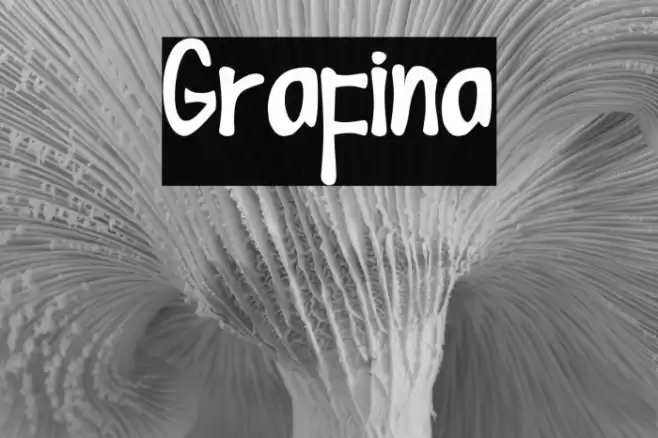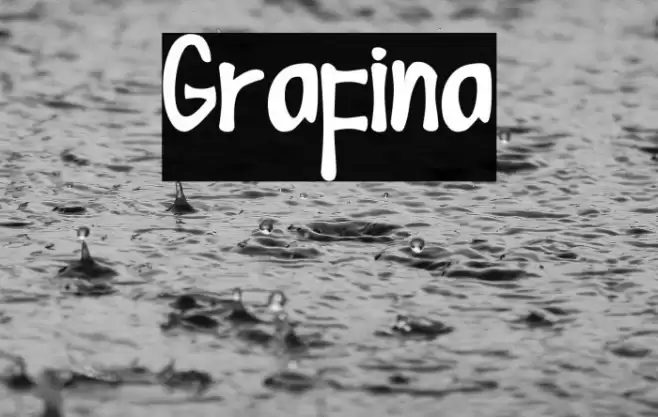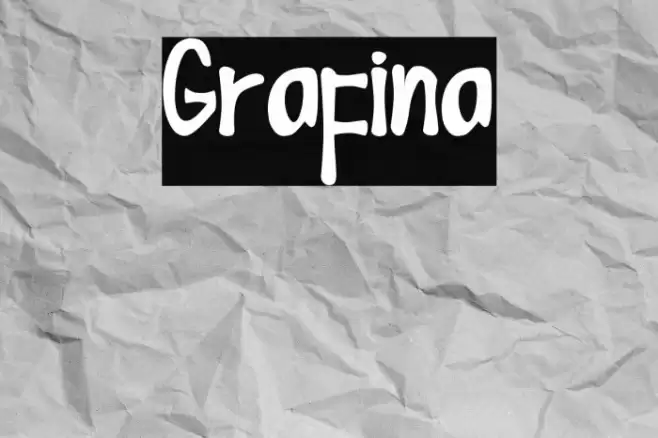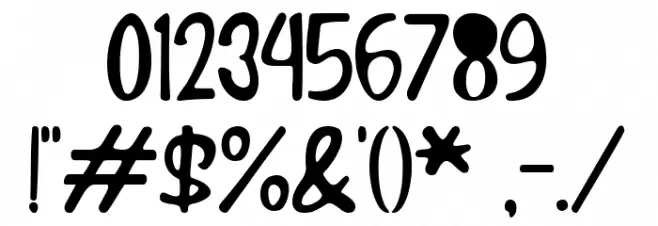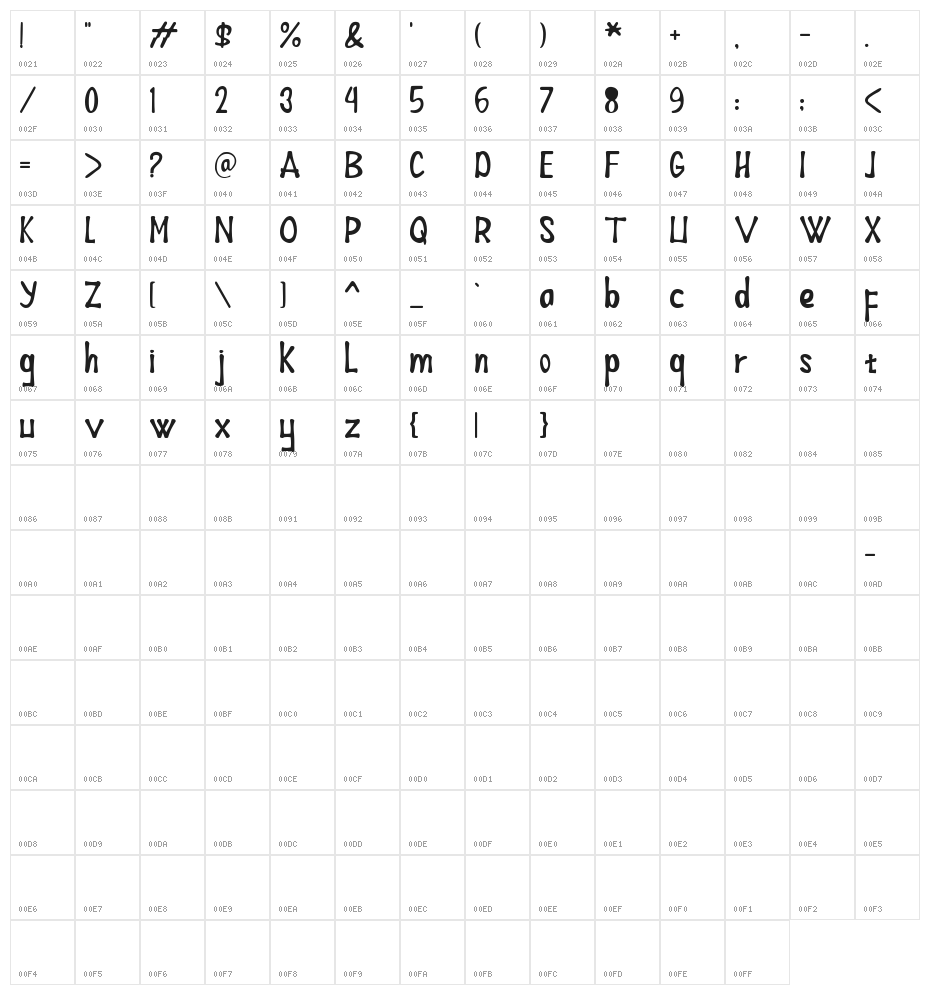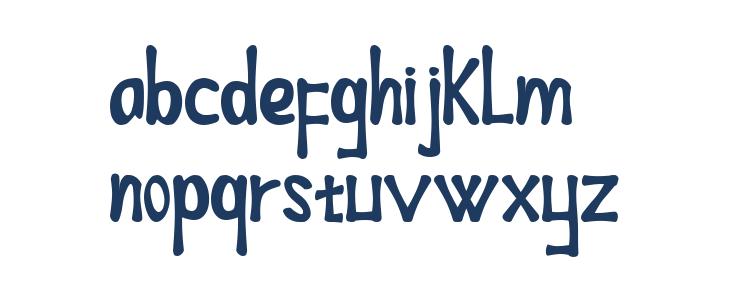
Grafina Font
Grafina Description
This font exhibits a playful and whimsical style, characterized by its irregular and hand-drawn appearance. The letters have a slightly uneven baseline, adding to the casual and informal feel. The strokes are bold and rounded, giving the font a friendly and approachable look. The uppercase and lowercase letters maintain a consistent style, with the lowercase letters being slightly smaller in size. The numbers and special characters follow the same playful design, making the font suitable for creative and fun projects.
A playful, hand-drawn font with bold, rounded strokes and an informal style from Regular fonts.